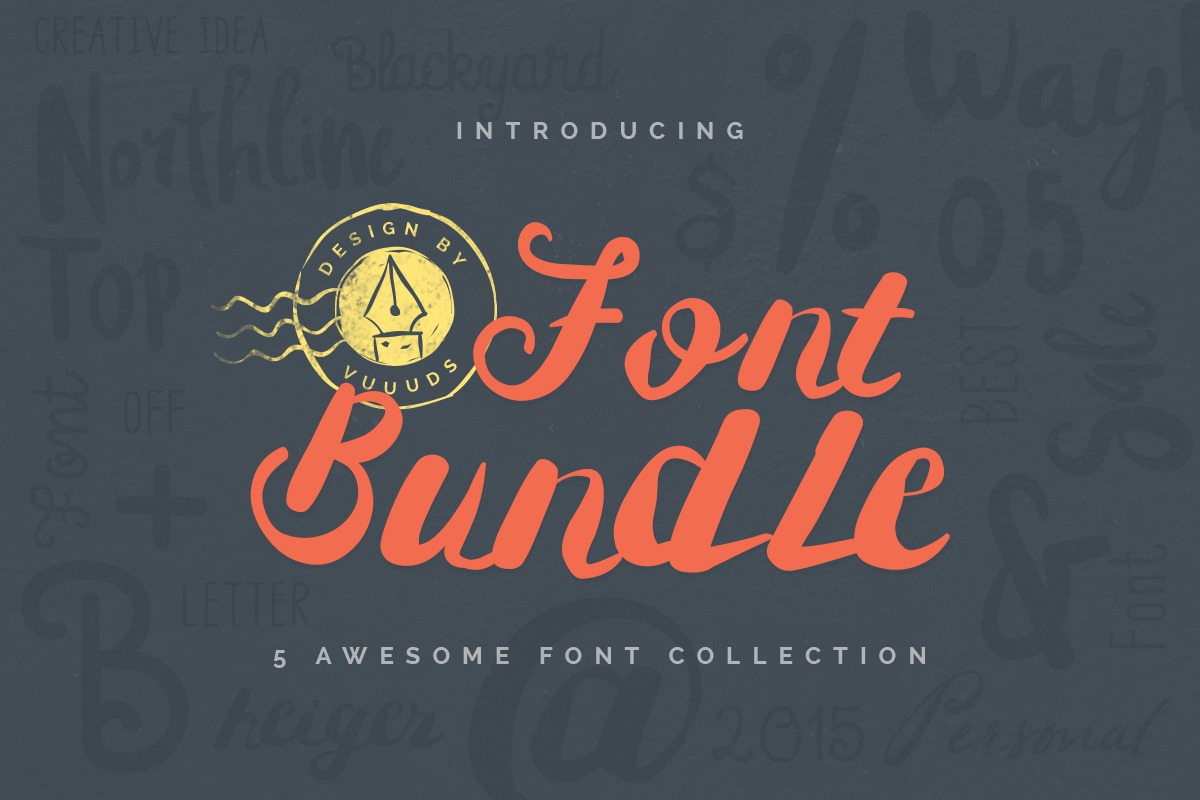
Introducing best font bundle from my store. Every single letters have been carefully crafted to make your text looks awesome. With lot of alternate glyph will make your word feel like natural hand drawn. This font can be used for quotes, poster, wedding, branding, logo, fashion, apparel, letter, invitation, stationery, etc.